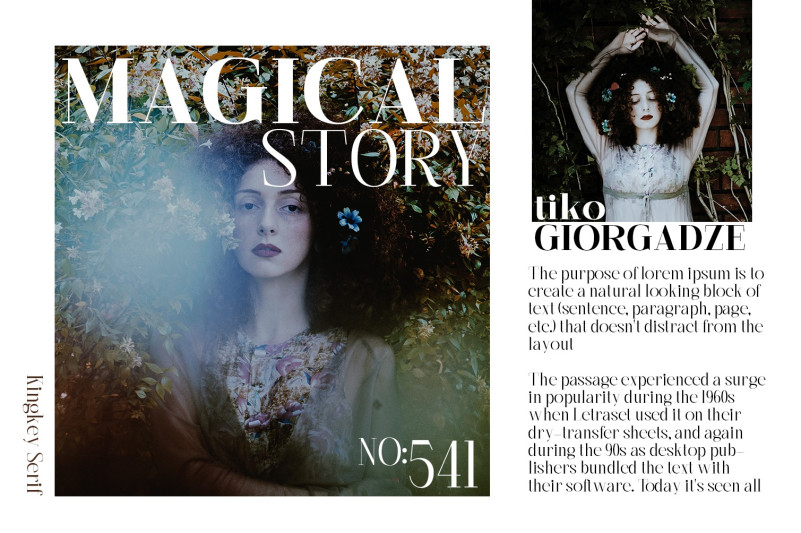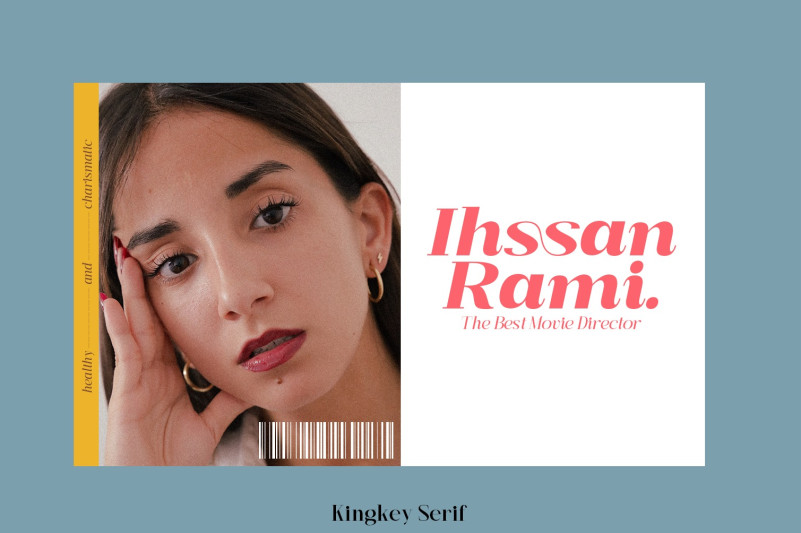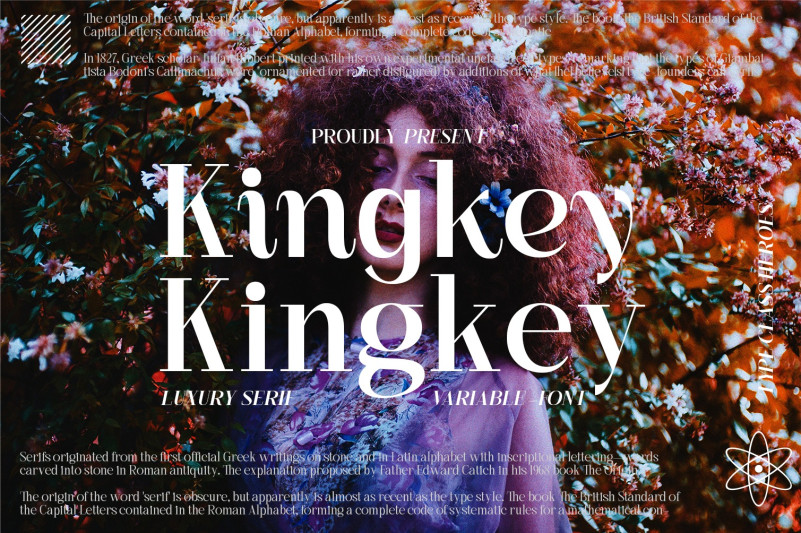
Kingkey Black Font
Kingkey Black Serif Font, It can easily be matched to an incredibly large set of projects, so add it to your creative ideas and notice how it makes them stand out!